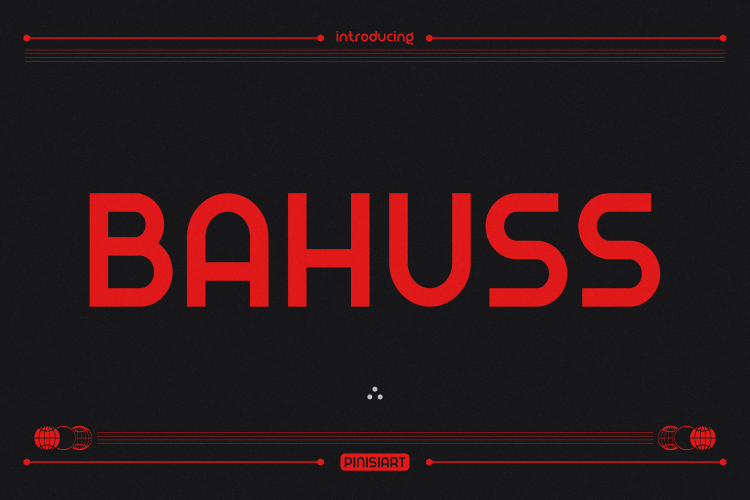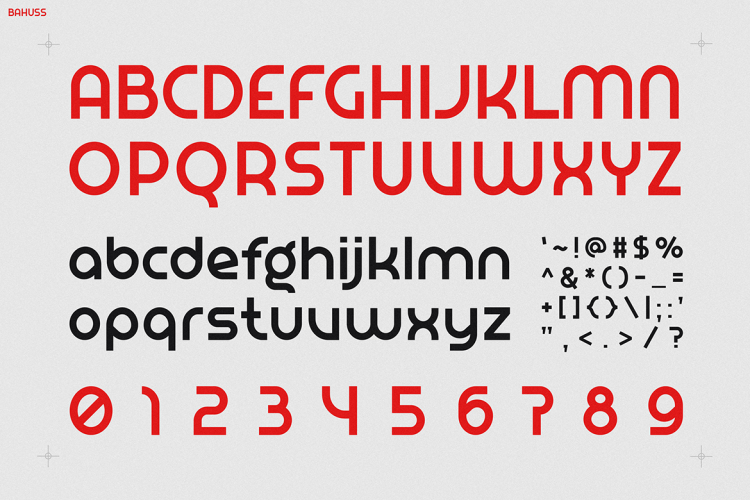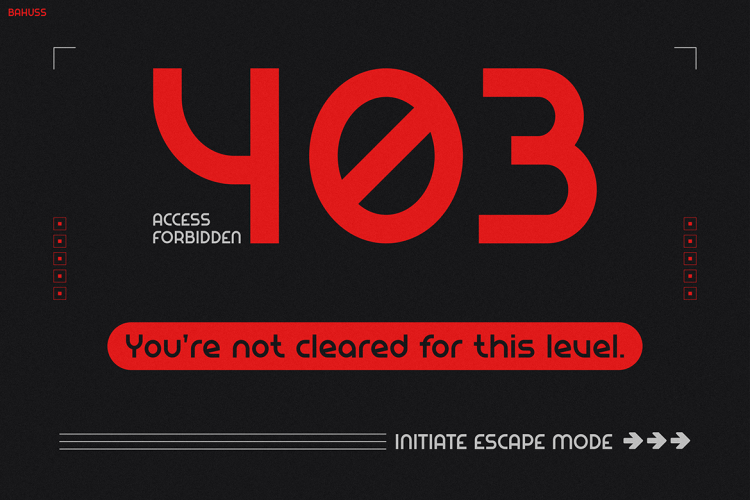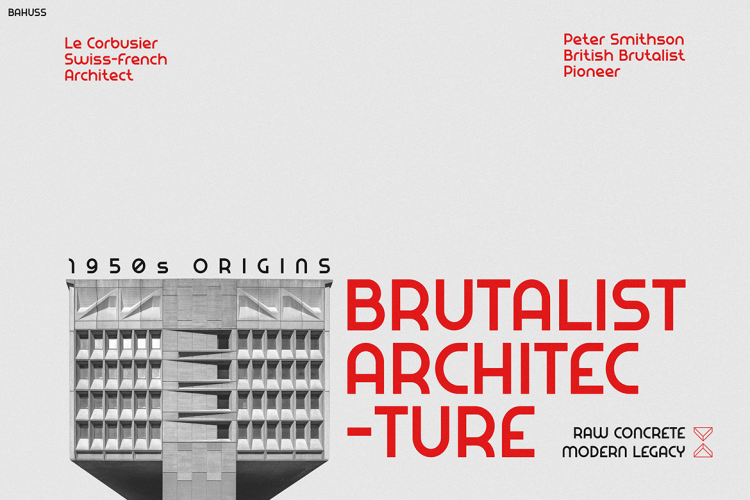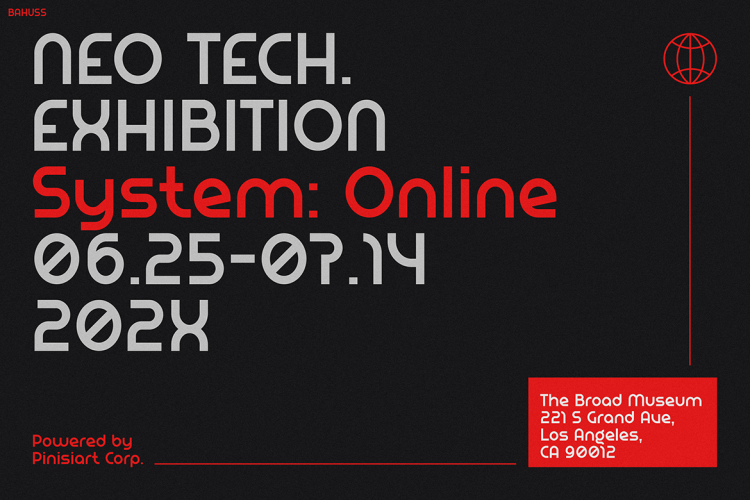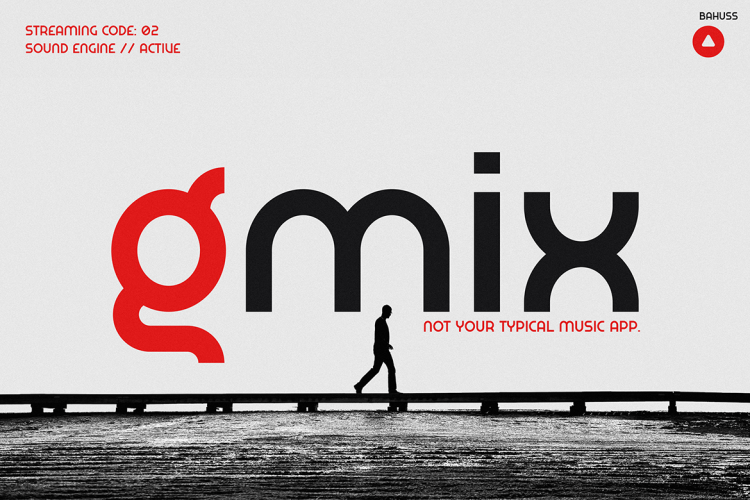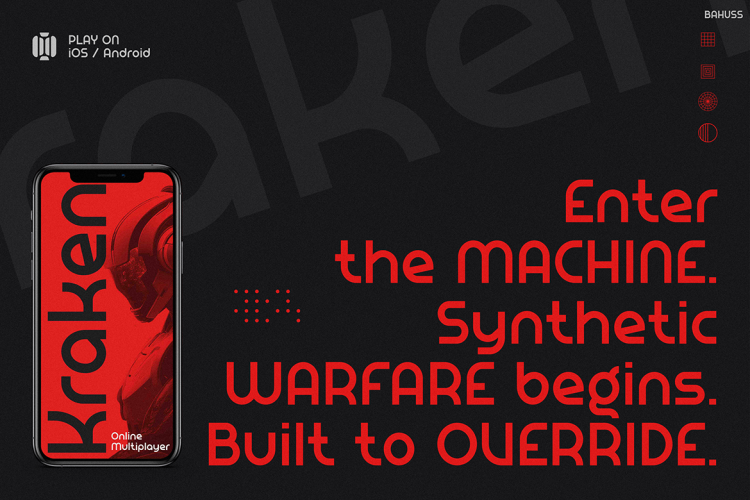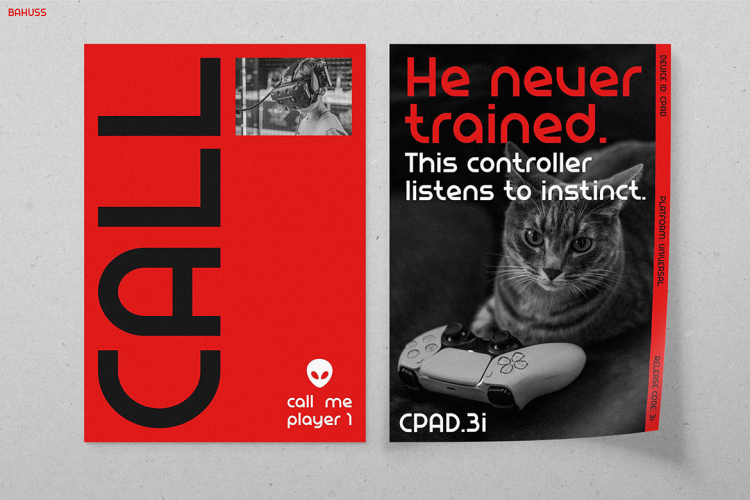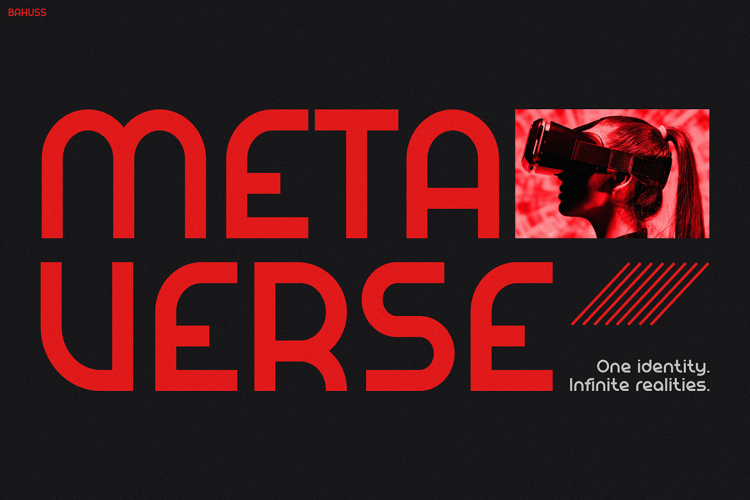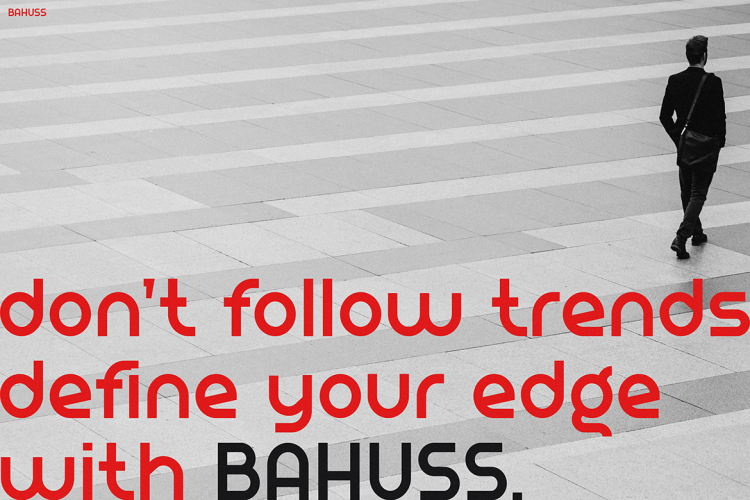
Instagram Font BAHUSS is the perfect choice for creators who want to make bold statements in a sleek, futuristic style. From the first glance, this font commands attention. Its geometric forms and sharp modular design create a visual rhythm that instantly stands out. Not only does it look bold and confident, but it also reflects a strong sense of structureโperfect for digital spaces where clarity and creativity must go hand in hand.
What sets BAHUSS apart is its ability to blend brutalist architecture influences with a digital-age aesthetic. While most fonts focus on simplicity or softness, BAHUSS chooses intensity. Each character features a precise mix of angularity and curve, making it feel both engineered and expressive. As a result, your text doesnโt just appear on a screenโit performs. Whether youโre designing for Instagram, branding projects, posters, or event campaigns, BAHUSS helps you deliver messages with power and style.
Moreover, BAHUSS is more than just visually appealing. It also provides practical advantages. The font remains legible across various screen sizes, thanks to its clear spacing and well-balanced forms. Therefore, whether you’re working on mobile-first content or widescreen layouts, BAHUSS will remain sharp and readable.
Who Should Use Instagram Font BAHUSS?
BAHUSS is especially suitable for graphic designers, content creators, and digital marketers who value originality and impact. In particular, professionals in fashion, gaming, music, or tech industries will find its aesthetic aligned with their branding goals. Additionally, digital artists and curators who focus on futuristic or edgy visuals will appreciate the tone this typeface sets.
Furthermore, if youโre building a bold Instagram presence, BAHUSS offers the uniqueness your grid needs. Social media managers and brand strategists will also benefit from its eye-catching letterforms. Instead of relying on standard fonts, you can use BAHUSS to create scroll-stopping headlines and visuals that spark curiosity and engagement.
Ultimately, if you’re ready to turn your digital presence into a visual statement, Instagram Font BAHUSS is the font that gets you there. Let your content break free from the ordinary and take on a form thatโs innovative, memorable, and entirely your own.